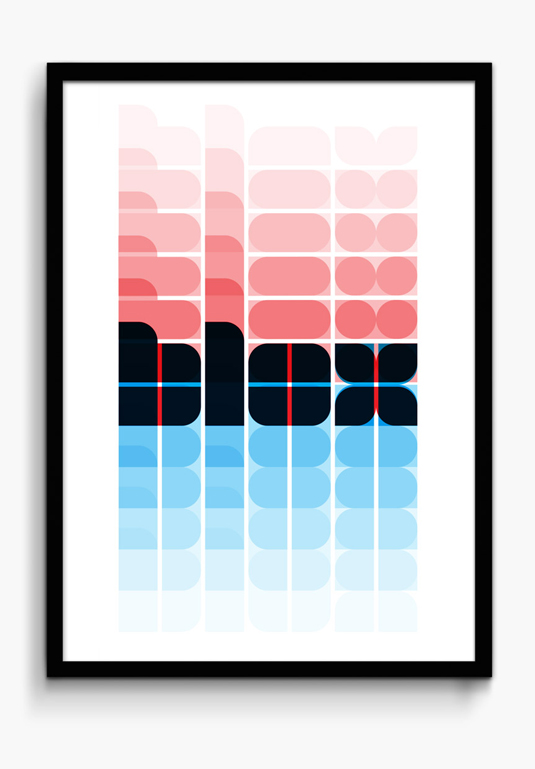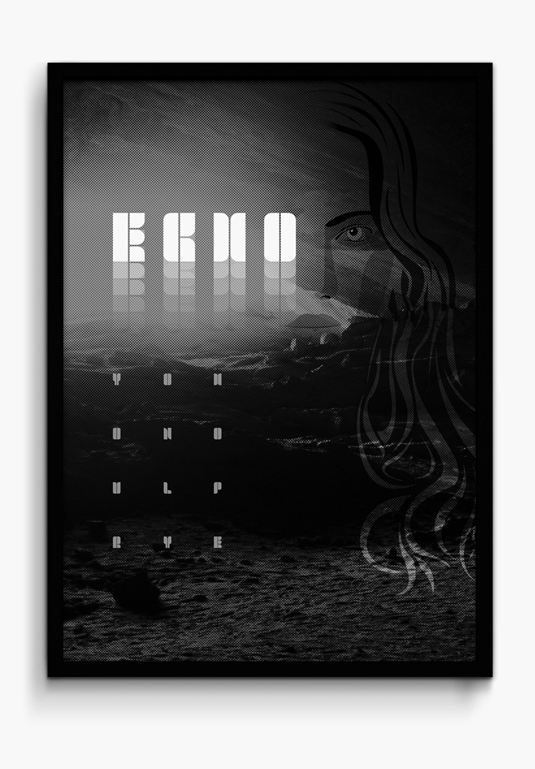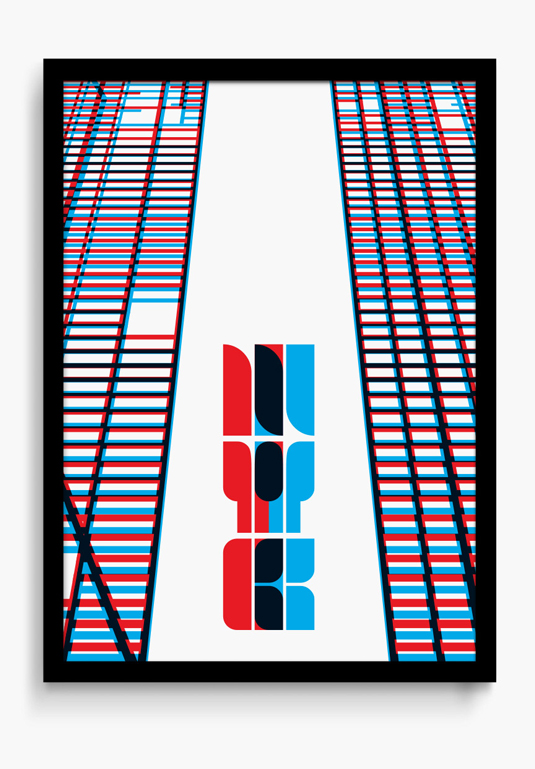
Font of the day: Blox
Blox by Superfried
Today's typeface of choice is Blox, a bold, retro, experimental display typeface designed by the team at graphic design studio Superfried. "With a simple geometric structure, tight spacing and cuts, Blox is very distinct with high impact," comments Superfried's Mark Richardson.